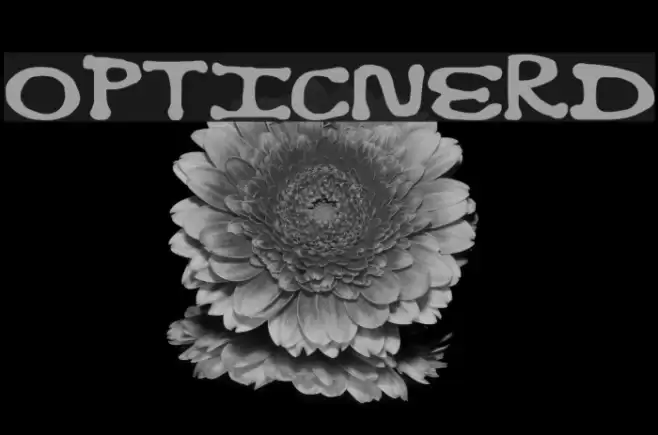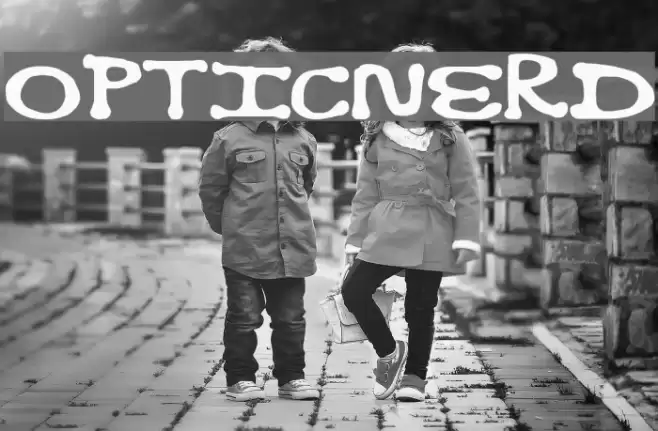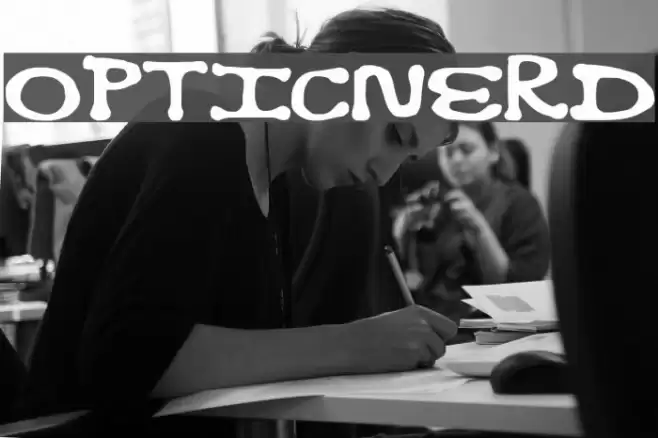
OpticNerd Font
OpticNerd Description
This font features a playful and quirky design with a hand-drawn aesthetic. The characters have a whimsical, uneven stroke that gives them a lively and energetic appearance. The uppercase and lowercase letters maintain a consistent style, with rounded edges and a slightly irregular baseline that adds to the font's charm. The numbers and special characters follow the same playful theme, making the font suitable for creative and informal projects. Its unique style is ideal for capturing attention and conveying a sense of fun and creativity.
A playful, hand-drawn font with a quirky and lively design from Cartoon fonts.
- Proposed Projects: Ideal for children's books, playful branding, creative posters, and informal invitations.
- Overall Style: Playful, Quirky, Hand-drawn
- Use Case: Headlines, Posters, Creative projects